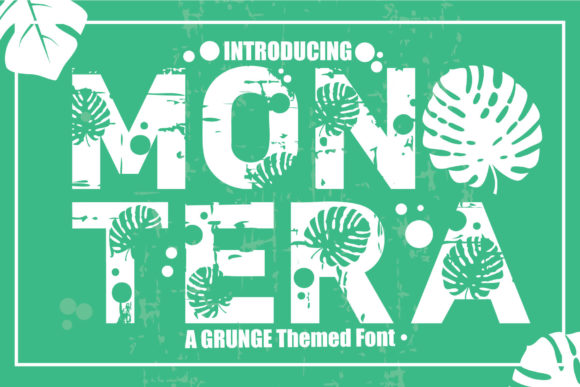
Introducing Mon Tera, the audacious and exhilarating display font that captures the vibrant energy of speed and sports. Immerse yourself in a world of dynamic designs, where Mon Tera's bold strokes and assertive presence ignite a sense of adventure and exhilaration.
With its captivating curves and confident lines, Mon Tera is the ultimate expression of power and motion. Unleash your creativity and let your imagination soar as you explore the endless possibilities of this extraordinary font.
Mon Tera is not just a font; it's a gateway to a realm where ideas take flight, and designs come alive with unparalleled energy. Its versatility knows no bounds, making it the perfect choice for logos that demand attention, headlines that command respect, and posters that ignite passion.
Picture this: Mon Tera gracing the pages of children's books, bringing beloved characters to life with its playful and energetic style. Its bold presence adds a touch of whimsy and adventure to every story, capturing the imagination of young readers.
Or envision Mon Tera as the star of your next sports-themed design project. Its dynamic curves and sharp angles perfectly capture the intensity and excitement of athletic competition. Whether you're creating posters for a local sporting event or designing team jerseys, Mon Tera will elevate your designs to new heights.
But Mon Tera's potential doesn't end there. Its versatility extends to a wide range of design concepts, from sleek and modern logos to eye-catching posters and dynamic social media graphics. Its bold strokes and confident presence demand attention, ensuring your designs stand out from the crowd.
So, embark on a journey of creativity with Mon Tera, the font that ignites passion and propels your designs to new heights. Its bold and assertive style will leave an unforgettable impression on your audience, leaving them captivated and inspired.
Explore the endless variations of Mon Tera and discover a world of design possibilities that will leave you breathless. Let your imagination run wild and create designs that resonate with power, speed, and boundless energy.